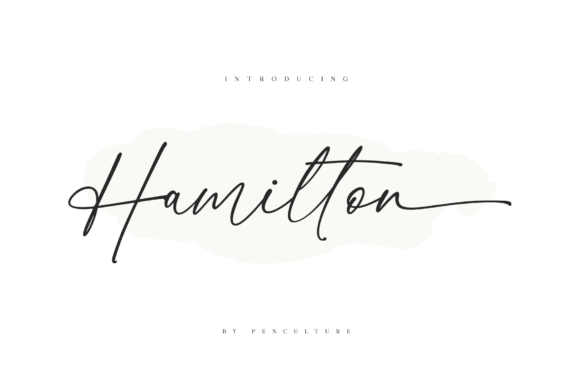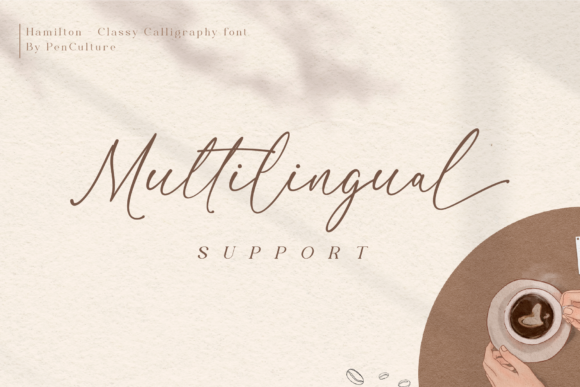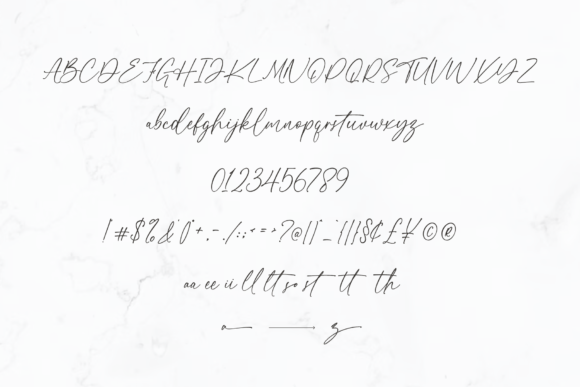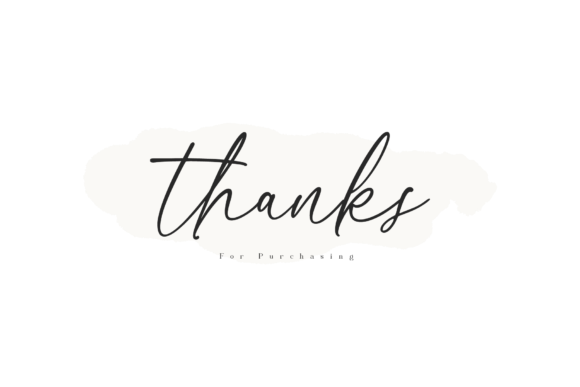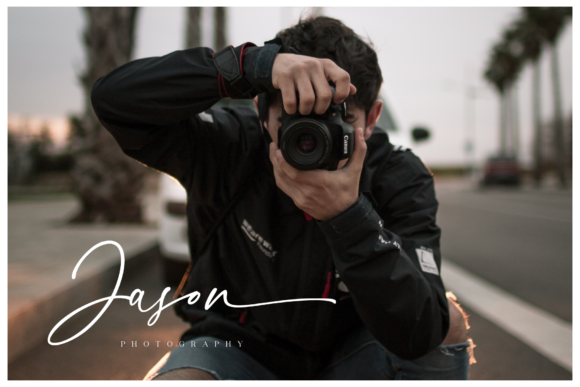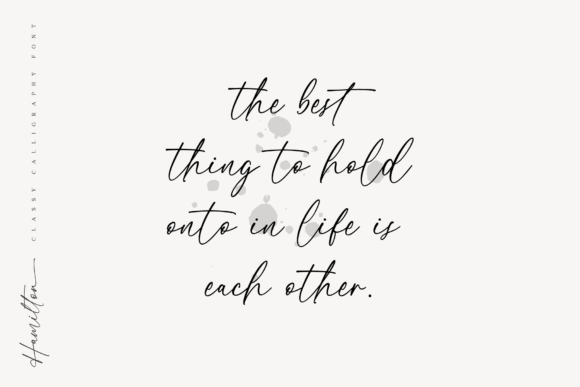
Hamilton Font
About Hamilton Font
Hamilton is modern and classy calligraphy font, that comes with beautiful ligatures and lovely alternates. Hamilton has a very beautiful stroke and it will suit various wedding invitations, fashion cards, and more. This font is PUA encoded which means you can access all of the glyphs and swashes with ease!